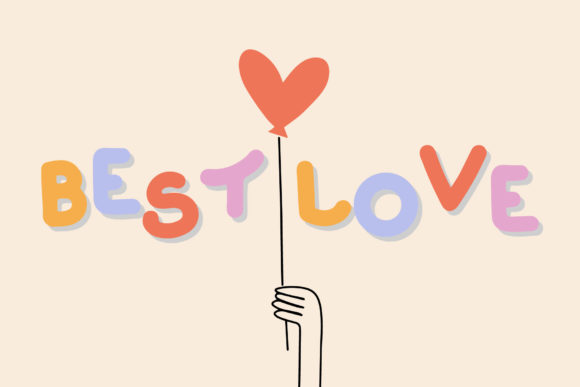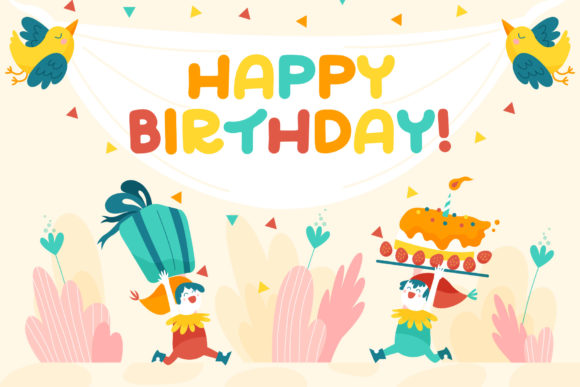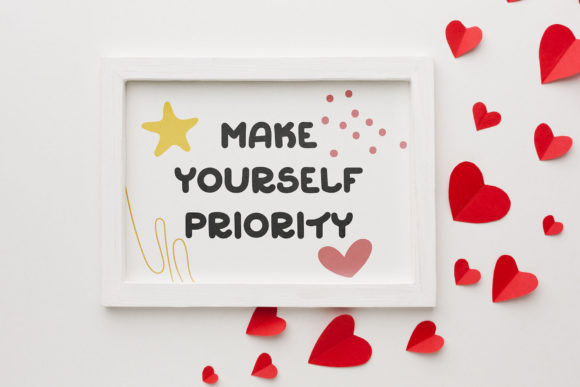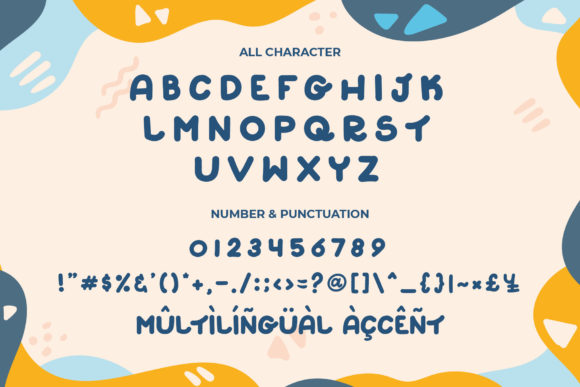
Introduction to Ring Comedy Font
Remember the thrill of finally landing on the perfect design element for your creative project? It’s like hitting the jackpot, and your entire vision comes together seamlessly. For designers, this moment is invaluable – it’s what separates a good design from a great one. And if you’re looking for that special something to elevate your craft, you’re in luck. Today, we’re shining the spotlight on the delightful Ring Comedy Font, a free download that’s about to become your new go-to design resource.
With its clean and soft lines, this friendly display font is the perfect fit for any project that needs a touch of whimsy and charm. Whether you’re working on a DIY craft, creating a logo, or developing a brand identity, the Ring Comedy Font is sure to bring a smile to your face and your audience’s eyes.
Key Features of Ring Comedy Font
- Unique and playful design, ideal for creative projects that require a touch of humor and whimsy.
- High-quality font with transparent background, allowing for seamless integration with various design resources.
- Comes in a range of sizes and resolutions, from 16px to 128px, and 72 dpi to 300 dpi, catering to different design needs.
- Features a modern and sleek aesthetic, perfect for adding a comedic touch to logos, posters, and other visual materials.
- Can be easily customized to fit specific design requirements, making it a versatile design resource.
Honest Review: Ring Comedy Font
I recently stumbled upon the Ring Comedy Font and decided to give it a try for my latest creative project. As a designer, I’m always on the lookout for high-quality design resources that can elevate my work, and I’m happy to say that this font delivers.
Here are some of the things that I think work well with the Ring Comedy Font:
- ✨ Unique and quirky design style that’s perfect for adding a touch of humor to your creative project
- ✨ Supports transparent backgrounds, allowing for easy integration into your design
That being said, I do have a few limitations to mention:
- ⚠️ Limited character set, which may not be suitable for longer blocks of text
- ⚠️ Not ideal for formal or professional designs, as it’s more geared towards casual and playful projects
Overall, I’m impressed with the Ring Comedy Font and would definitely recommend it for designers looking for a fun and quirky font to add some personality to their work.
How to Use Ring Comedy Font
The Ring Comedy Font is a high-quality design resource that can add a touch of creativity to your project. With its unique and playful style, it’s perfect for designers looking to add some humor and whimsy to their work.
For best results, use the Ring Comedy Font on a transparent background to allow the font to take center stage. You can also experiment with different font sizes and styles to create a unique and eye-catching design.
The Ring Comedy Font is perfect for a variety of creative projects, including social media graphics, blog posts, and marketing materials. It’s also great for adding a touch of humor to presentations and reports.
Alternatives to Ring Comedy Font
Comic Sans MS is a popular alternative to Ring Comedy Font, suitable for creative projects requiring a playful and approachable tone. It’s a high-quality design resource that works well for informal communication, such as newsletters, social media graphics, and advertising materials.
Compared to Ring Comedy Font, Comic Sans MS has a more refined and professional look, making it a better choice for designs where a more mature tone is required.
Luckiest Guy
Luckiest Guy is another alternative to Ring Comedy Font, ideal for creative projects that need a fun and quirky vibe. This font is perfect for designs with a transparent background, allowing the text to stand out and grab attention.
Unlike Ring Comedy Font, Luckiest Guy has a more modern and edgy feel, making it suitable for designs that require a bold and contemporary look.